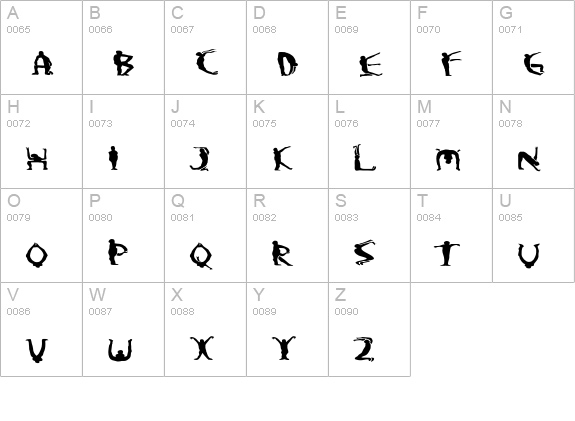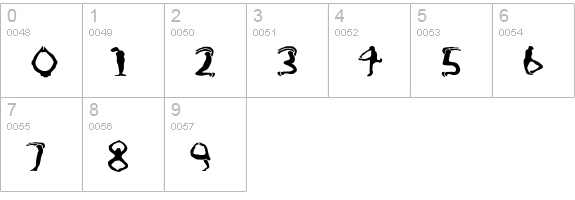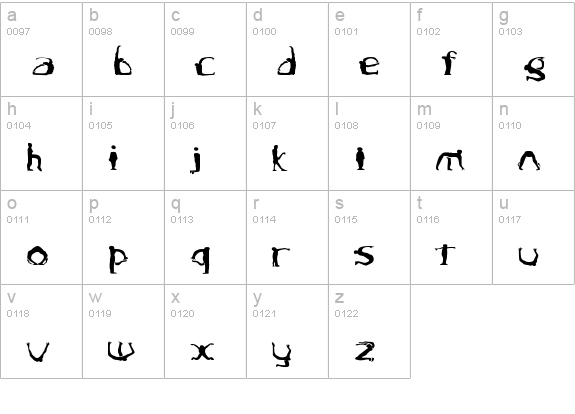
Boogieman Font Details
Introducing Boogieman font, a playful and whimsical typeface that adds a touch of fun to any design project. This font is perfect for creating eye-catching titles, posters, invitations, and more. Boogieman features quirky characters with a unique handmade feel, making it stand out from the crowd. What's even better is that Boogieman font is completely free to download at FontsMarket.com! Whether you're a professional designer or just starting out, this font is a great addition to your collection. Don't miss out on the opportunity to add a touch of creativity to your designs with Boogieman font. Download it now and let your imagination run wild!